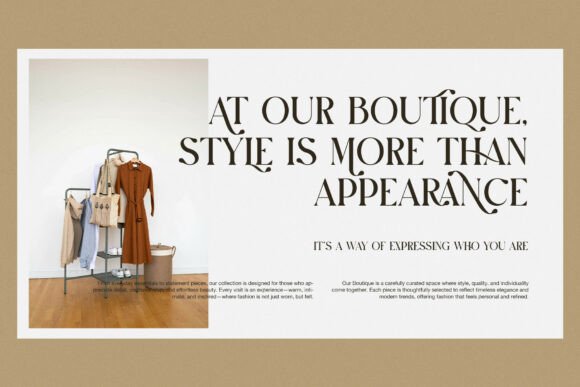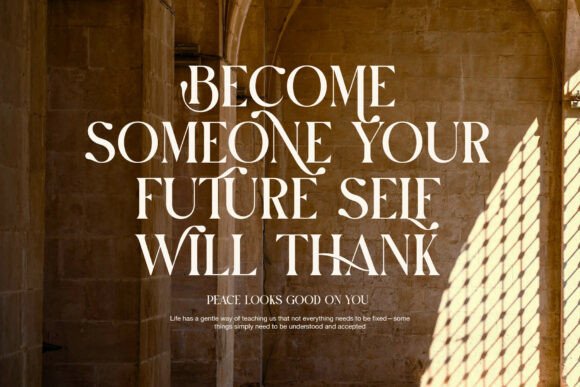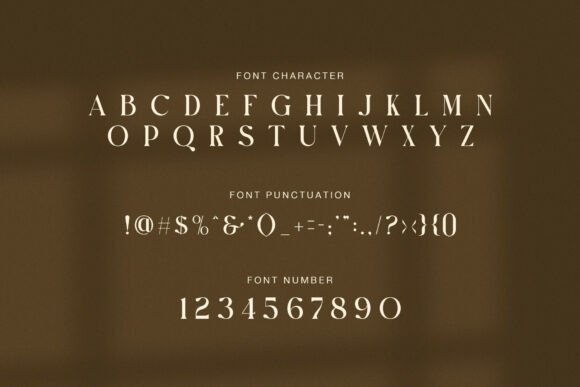
The Elegant Boxser Font: A Designer’s New Best Friend
I still remember the design project that led me to discover the Boxser font. I was working on a luxury brand’s editorial campaign, and my client was adamant about finding a font that exuded warmth, balance, and sophistication. I scoured the internet, tried countless fonts, but nothing seemed to fit the bill. That was until I stumbled upon Boxser – an elegant serif font that instantly resonated with my design sensibilities.
A Closer Look at Boxser
Boxser is designed to express warmth, balance, and refined simplicity. Inspired by modern editorials and calm visual storytelling, Boxser blends classic serif structure with smooth curves and gentle contrast. This results in typography that feels tasteful, relaxed, and quietly confident.
One of the standout features of Boxser is its soft letterforms that flow naturally across words and sentences. This smooth rhythm makes headlines feel inviting rather than rigid. At the same time, the font remains clear and readable, even when used in longer paragraphs. This versatility makes Boxser an excellent choice for both display text and supporting content.
What I Love About Boxser ✨
• ✅ Elegant serif design with a modern twist
• ✅ Smooth curves and gentle contrast for a refined look
• ✅ Soft letterforms that create a natural flow
• ✅ Highly readable, even in longer paragraphs
While Boxser is an excellent font, it’s not without its quirks. For instance, some users may find that the font’s elegance can be lost at very small sizes. Additionally, the font’s smooth curves can make it challenging to distinguish between similar letters.
Another potential limitation is that Boxser may not be the best fit for very bold or attention-grabbing designs. Its refined simplicity and elegance may get lost in more dramatic or avant-garde designs.
The Story Behind Boxser
Boxser was designed with the goal of creating a font that embodies warmth, balance, and refined simplicity. The designer drew inspiration from modern editorials and calm visual storytelling, blending classic serif structure with smooth curves and gentle contrast. The result is a font that feels tasteful, relaxed, and quietly confident.
Q: What is the best use case for Boxser?
A: Boxser is an excellent choice for designs that require a elegant and refined serif font, such as luxury brands, editorials, and high-end product designs.
Q: Can I use Boxser for body text?
A: Yes, Boxser is highly readable and can be used for both display text and body text.
Q: Is Boxser a script font?
A: No, Boxser is a serif font with a classic feel and elegant curves.